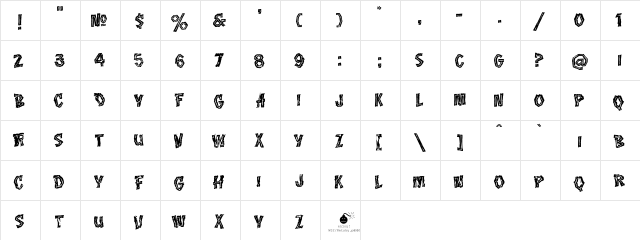
LHF Hick Sticks INLINE Regular
| Foundry | Chuck Davis for Letterhead Fonts |
| Designer | Chuck Davis for Letterhead Fonts |
Design Context for LHF Hick Sticks INLINE Typeface
LHF Hick Sticks INLINE is built around its visual character rather than neutral utility — its distinctive forms are designed to make an impression at display sizes.
Font Pairing: Pair with a clean neutral sans-serif for body copy to let LHF Hick Sticks INLINE's character lead without overwhelming the composition.
Pro Tip: Treat LHF Hick Sticks INLINE as the centrepiece of your typographic hierarchy. One strong heading set in a decorative face can carry an entire layout.